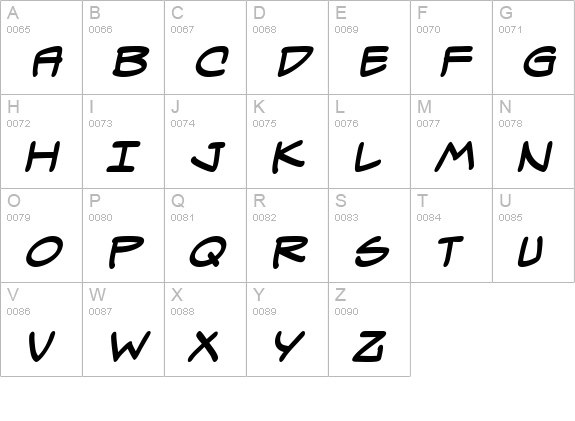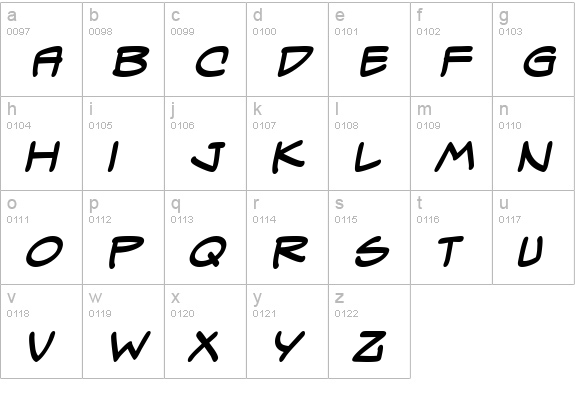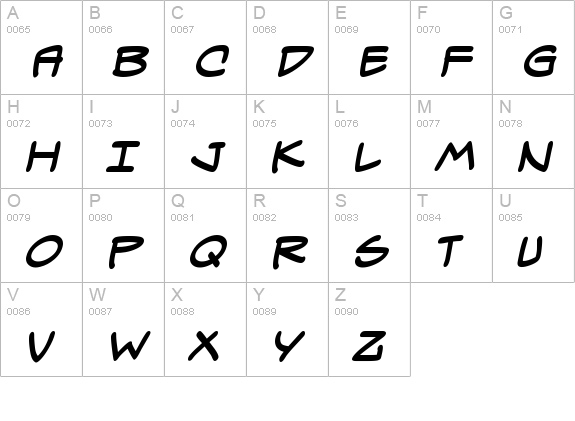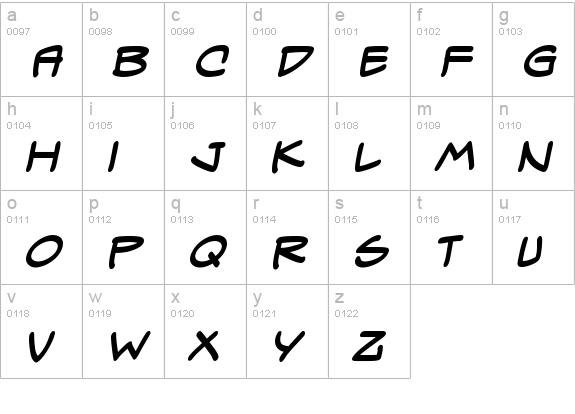
Spectre Verde BB Bold Font Details
Spectre Verde BB Bold is a strong, high-contrast variant in the Spectre typeface family \xE2\x80\x94 well suited to headlines, attention-grabbing titles, and strong calls-to-action.
Introducing Spectre Verde BB Bold, the epitome of modern sophistication and timeless elegance. This exquisite font exudes an air of confidence and style, making it the perfect choice for any design project that demands attention. With its bold, impactful letterforms and clean, crisp lines, Spectre Verde BB Bold commands the viewer's gaze, ensuring that your message is conveyed with utmost clarity and impact. Whether used for headlines, titles, or logos, this font captivates the eye and leaves a lasting impression. Spectre Verde BB Bold is not only visually stunning but also incredibly versatile. Its bold weight and distinct character make it ideal for a wide range of applications, from branding and packaging to editorial design and advertising. It effortlessly blends into various design styles, enhancing the overall aesthetic and giving your project a professional edge. One of the most remarkable aspects of Spectre Verde BB Bold is its availability as a free download. FontsMarket.com proudly offers this exceptional font as part of their extensive collection, allowing designers and enthusiasts alike to harness the power of Spectre Verde BB Bold without any cost. This generous offering opens up endless possibilities for creativity, helping designers bring their visions to life without breaking the bank. So why wait? Be bold and make a statement with Spectre Verde BB Bold. Download this remarkable font for free at FontsMarket.com and elevate your designs to new heights. Unleash your creativity and let Spectre Verde BB Bold take center stage in your next project, leaving a lasting impression on all who encounter it.